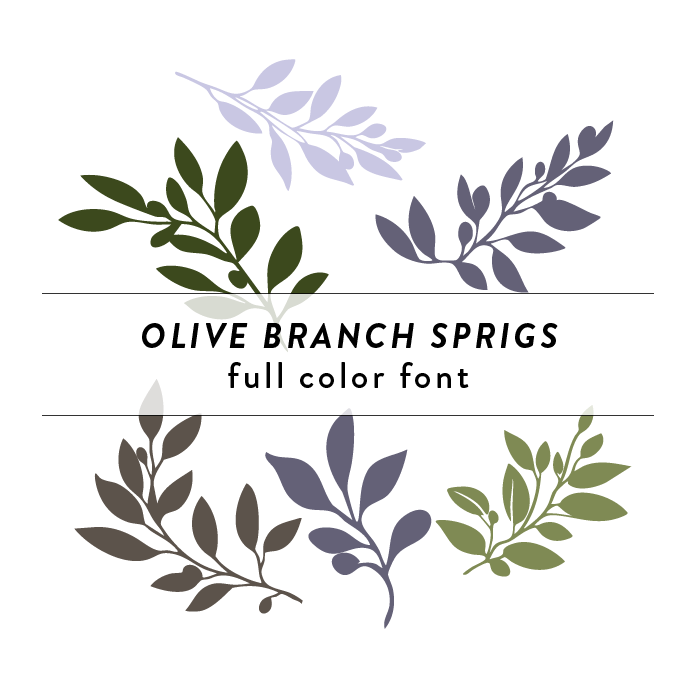
Olive Branch Sprigs Full Color Font is a whimsical and vibrant font design inspired by the beauty of summer trees and branches. The font features intricate leaf details and a colorful palette, perfect for adding a touch of nature to any project. Its playful style makes it ideal for summer-themed designs, invitations, and branding materials. This font is a OTF craft font that will appear in color only when used with the silhouette software.